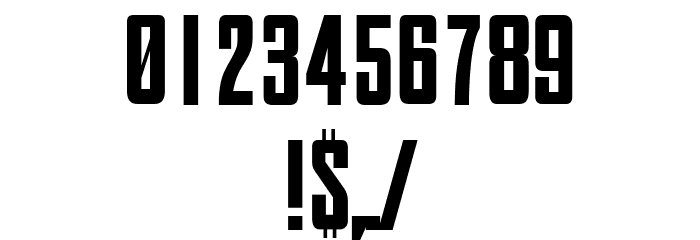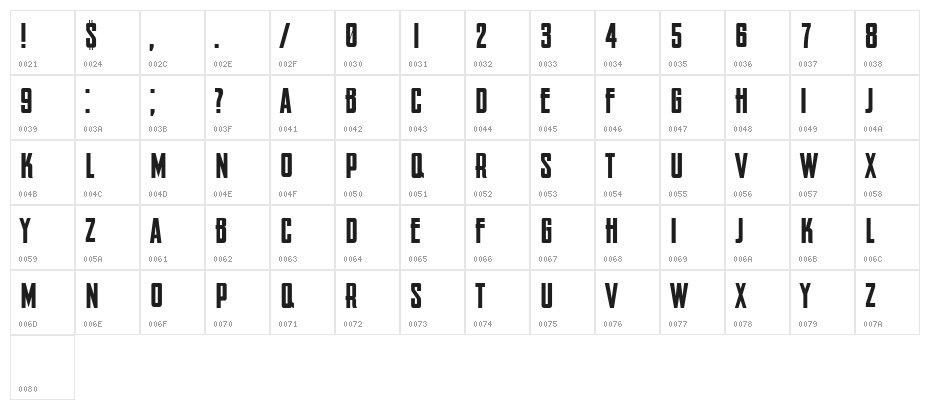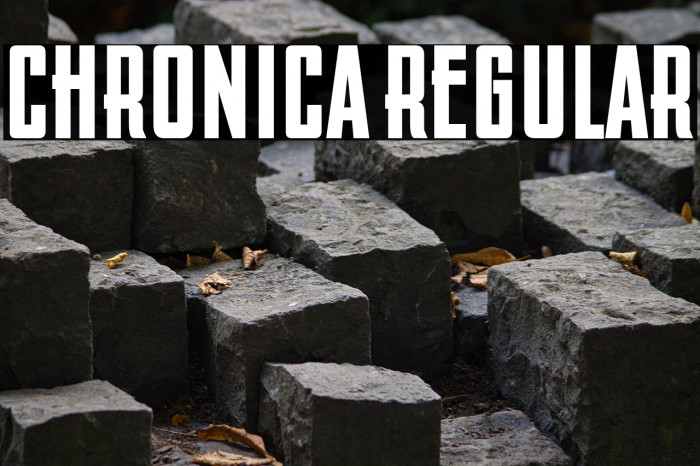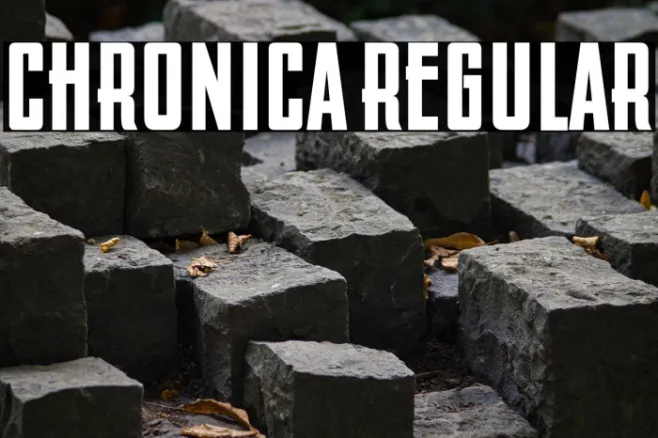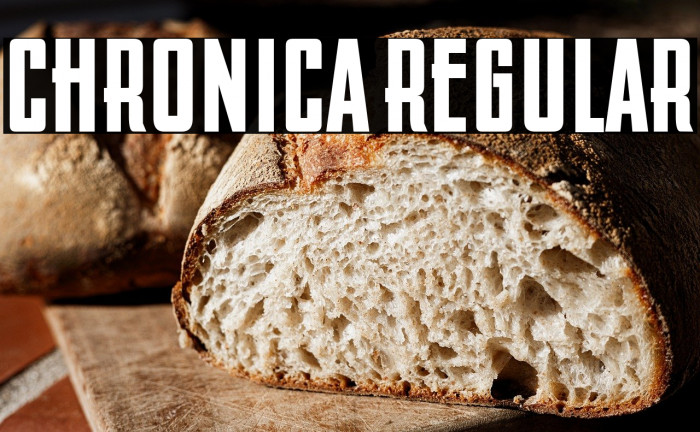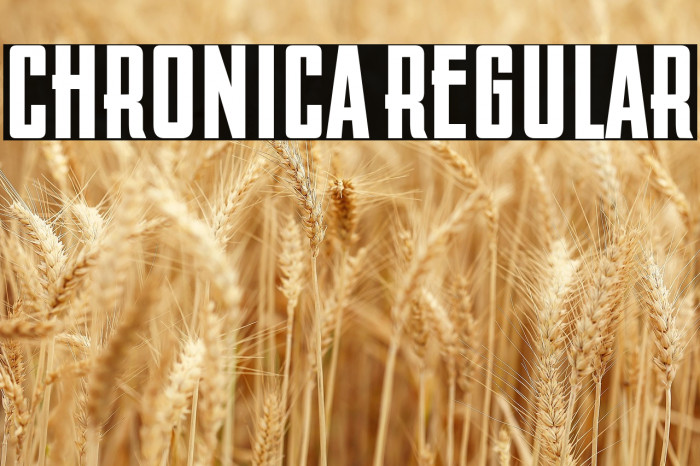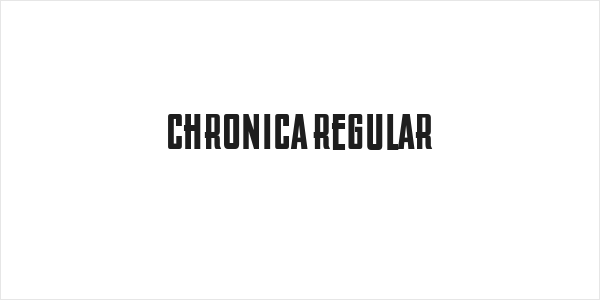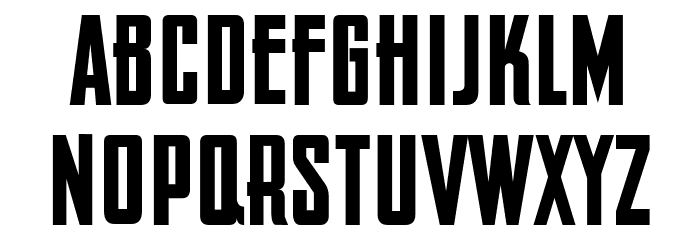
Chronica Regular Font
Chronica Regular Description
This font features a bold and impactful design with a strong presence. The characters are tall and narrow, emphasizing verticality and creating a sense of strength and authority. The strokes are consistent in width, contributing to a uniform appearance across all characters. The uppercase letters are particularly striking, with sharp angles and clean lines. The numbers and special characters maintain the same bold style, ensuring consistency throughout. This font is ideal for making a statement and capturing attention.